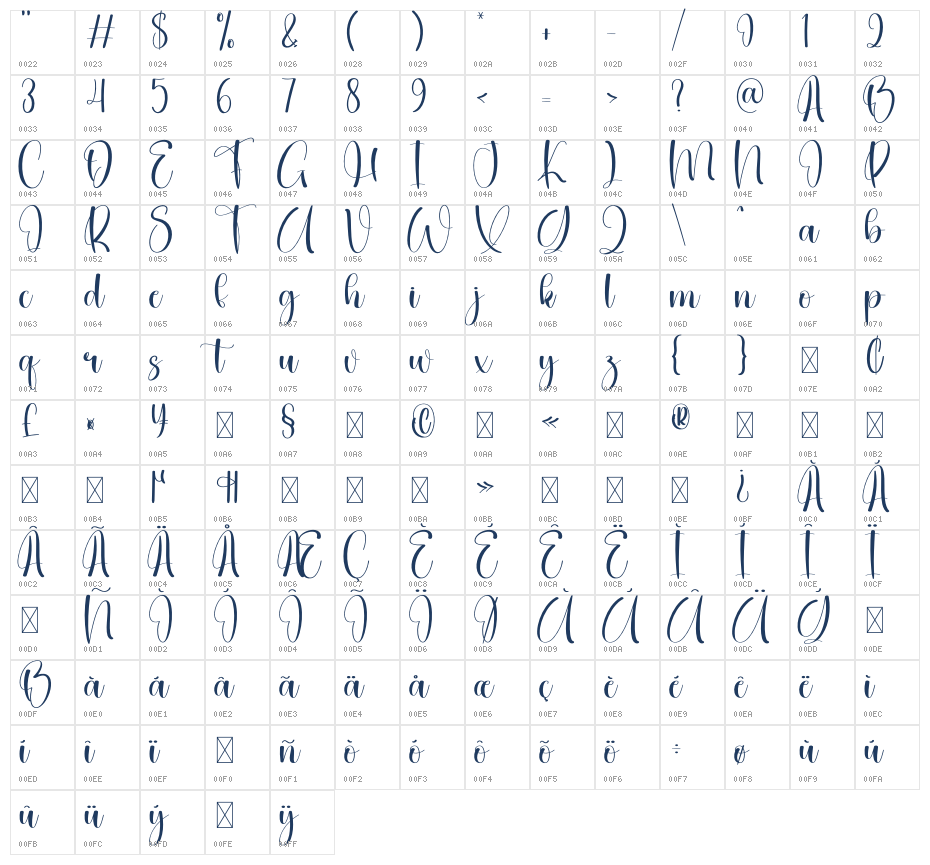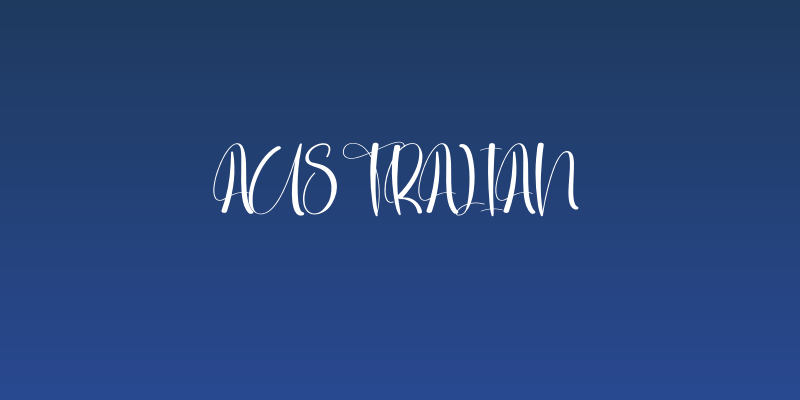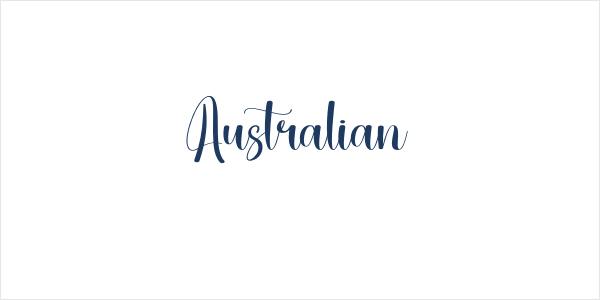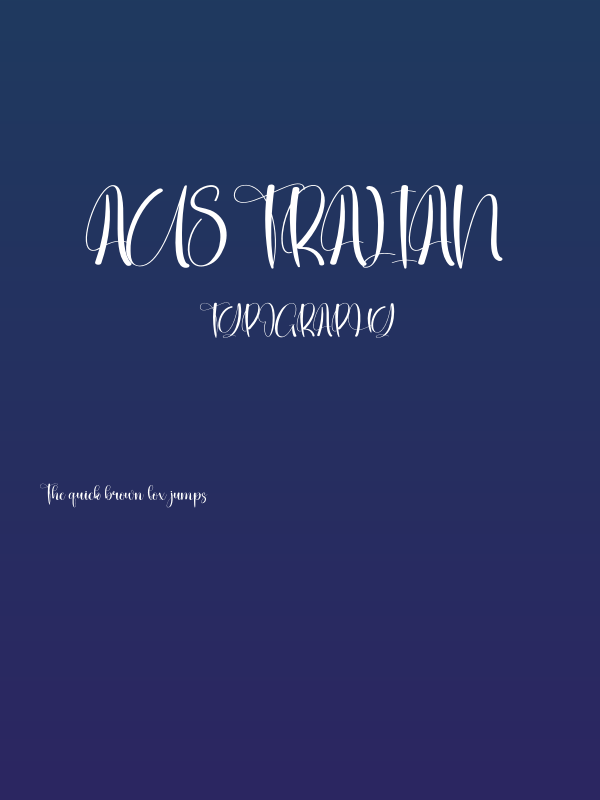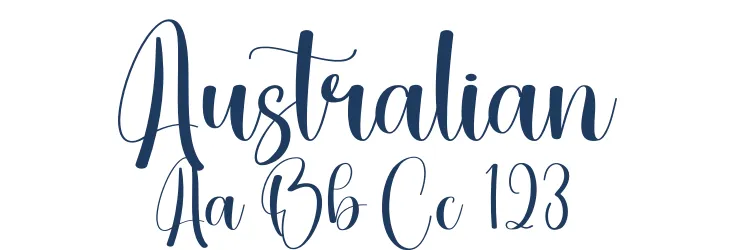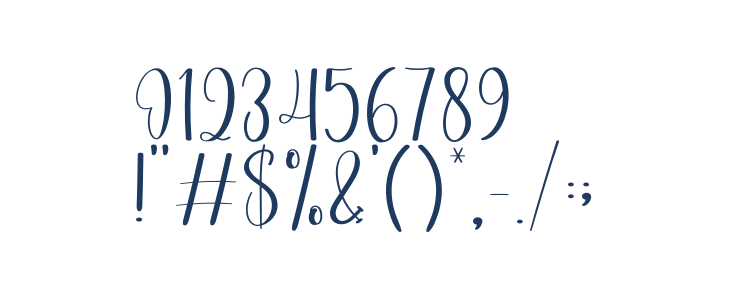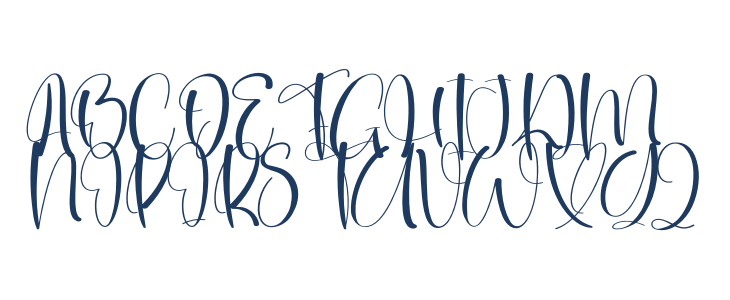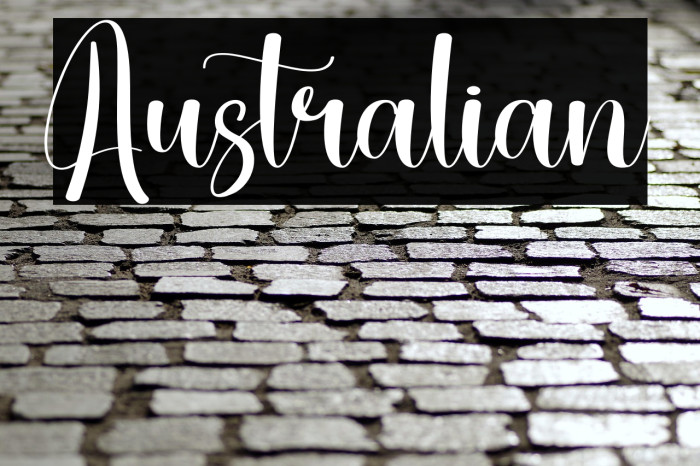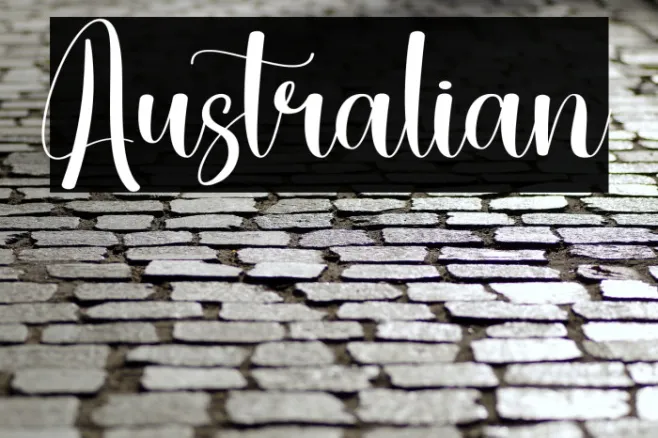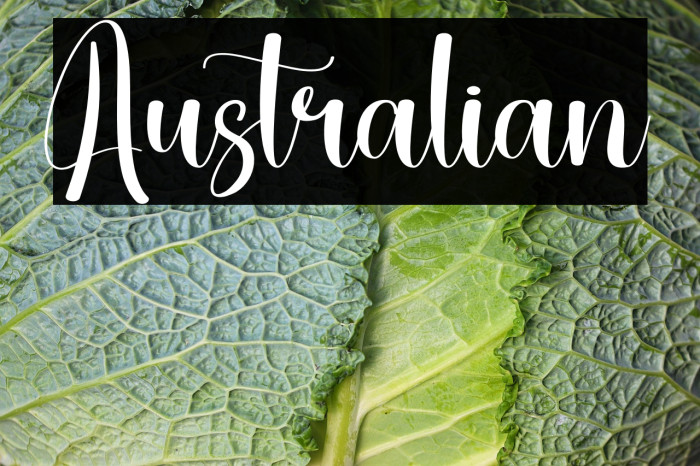
Australian Font
Australian Description
Elegant, cursive script font with flowing, decorative strokes and high contrast between thick and thin lines.
| Overall Style | Elegant, Decorative, Flourished |
| Use Case | Headlines, Invitations, Logos, Decorative Text |